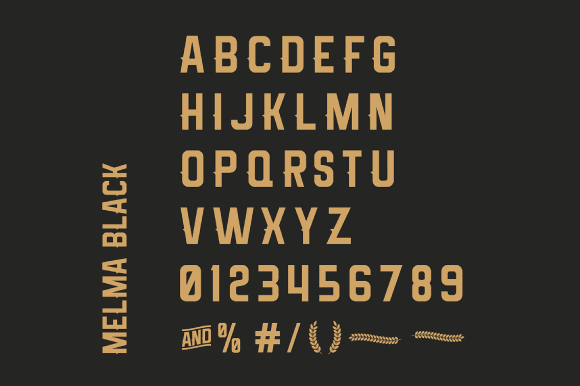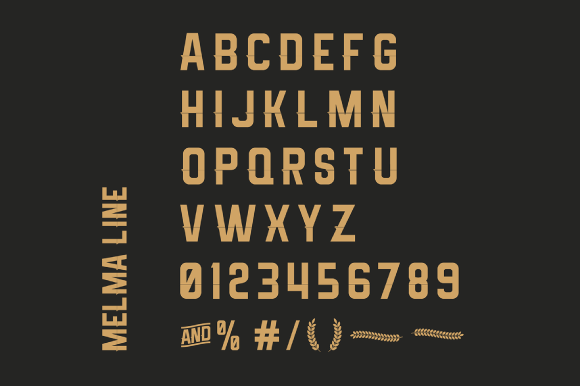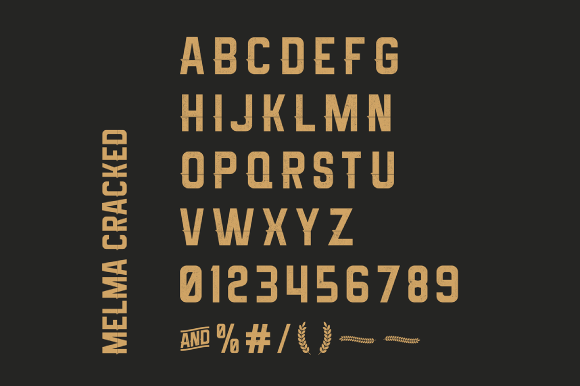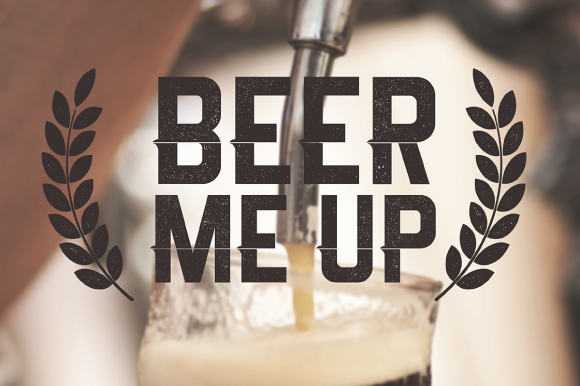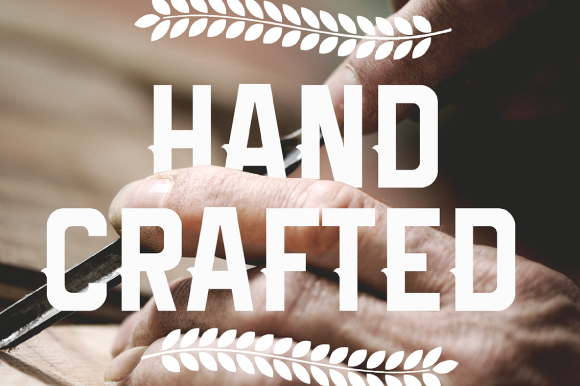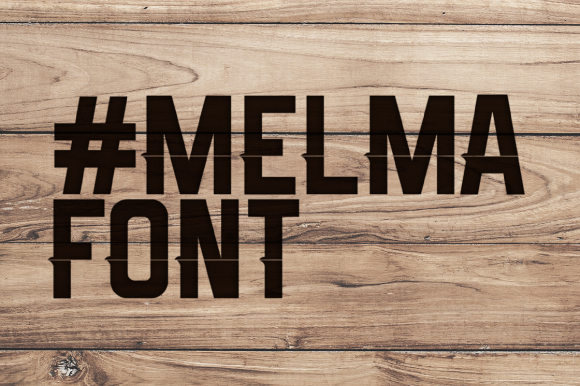
Introduction to Melma Font
Have you ever found yourself in the midst of a creative project, desperately searching for the perfect font to bring your vision to life? It’s that moment when you stumble upon a game-changer – a font that elevates your design to new heights and leaves a lasting impression. For designers, discovering the right font can be a dream come true, and that’s exactly what the Melma Font has to offer.
Designed with precision and care by Rafa Miguel, Melma Font is a stunning display font that boasts a unique texture and bold personality. Its versatility makes it a perfect accompaniment to a wide range of designs, from eye-catching graphics to sophisticated typography.
Whether you’re working on a high-profile project or a personal creative endeavor, Melma Font is a valuable resource that’s sure to inspire your next masterpiece. With its high-quality design and transparent background, this font is a must-have for any designer looking to take their work to the next level – and the best part? It’s available for free download, making it an accessible design resource for creatives of all levels.
Key Features of Melma Font
- High-quality design resource with a unique and creative style, perfect for various projects.
- Features a transparent background, making it ideal for use on various backgrounds and designs.
- Comes in a single font file with a standard size and resolution, suitable for most creative projects.
- Designed to be highly legible and versatile, making it a great addition to any design resource collection.
- Supports various languages and characters, making it a great choice for international and multilingual projects.
Honest Review: Melma Font
As a designer, I’m always on the lookout for high-quality design resources to elevate my creative projects. Recently, I stumbled upon the Melma Font, and I must say, it’s a gem!
- Transparent background: The font’s transparent background makes it incredibly versatile and easy to work with, especially when it comes to creating designs with complex backgrounds.
- Clean and modern design: The Melma Font’s clean and modern design makes it perfect for a wide range of creative projects, from branding to web design.
- Limited character set: One of the main limitations of the Melma Font is its limited character set. While it’s perfect for short phrases or headings, it may not be the best choice for longer blocks of text.
Overall, I’m impressed with the Melma Font, and I think it’s a great addition to any designer’s toolkit. While it may have some limitations, its free download and high-quality design make it a valuable resource for any creative project.
Melma Font
Tips for Getting the Most Out of Melma Font
To get the most out of Melma Font, use it in conjunction with a transparent background to create a high-contrast design. You can also use the font in combination with other design resources, such as graphics and images, to create a unique and creative project.
Melma Font is a versatile design resource that can be used in a variety of creative projects, including logos, branding, and marketing materials. It’s also a great choice for designers who want a high-quality, free download font for their next project.